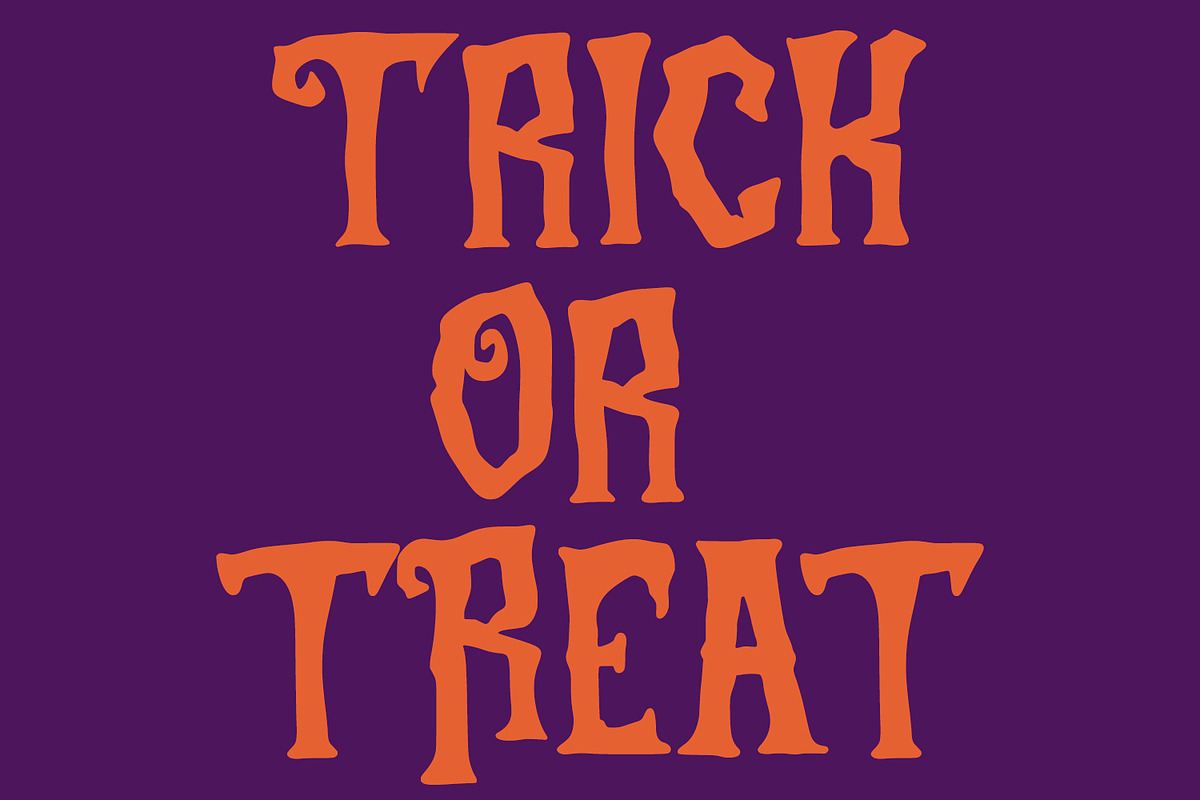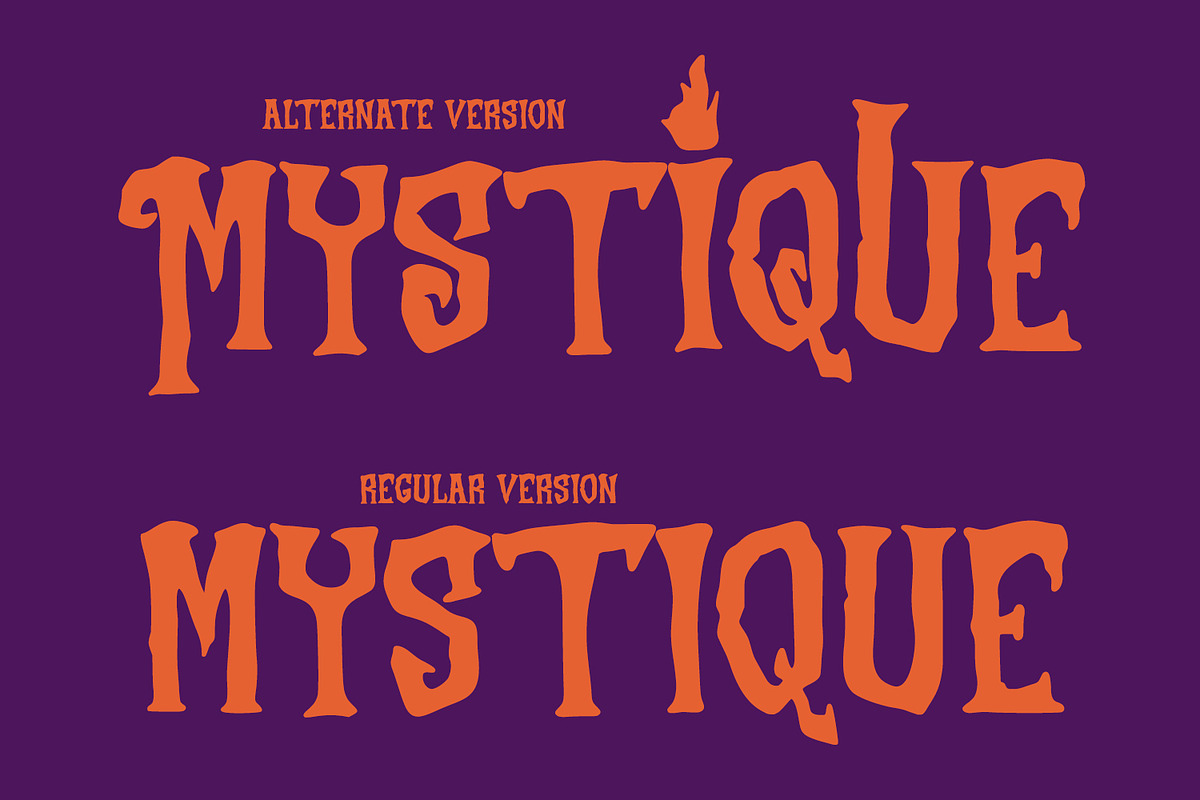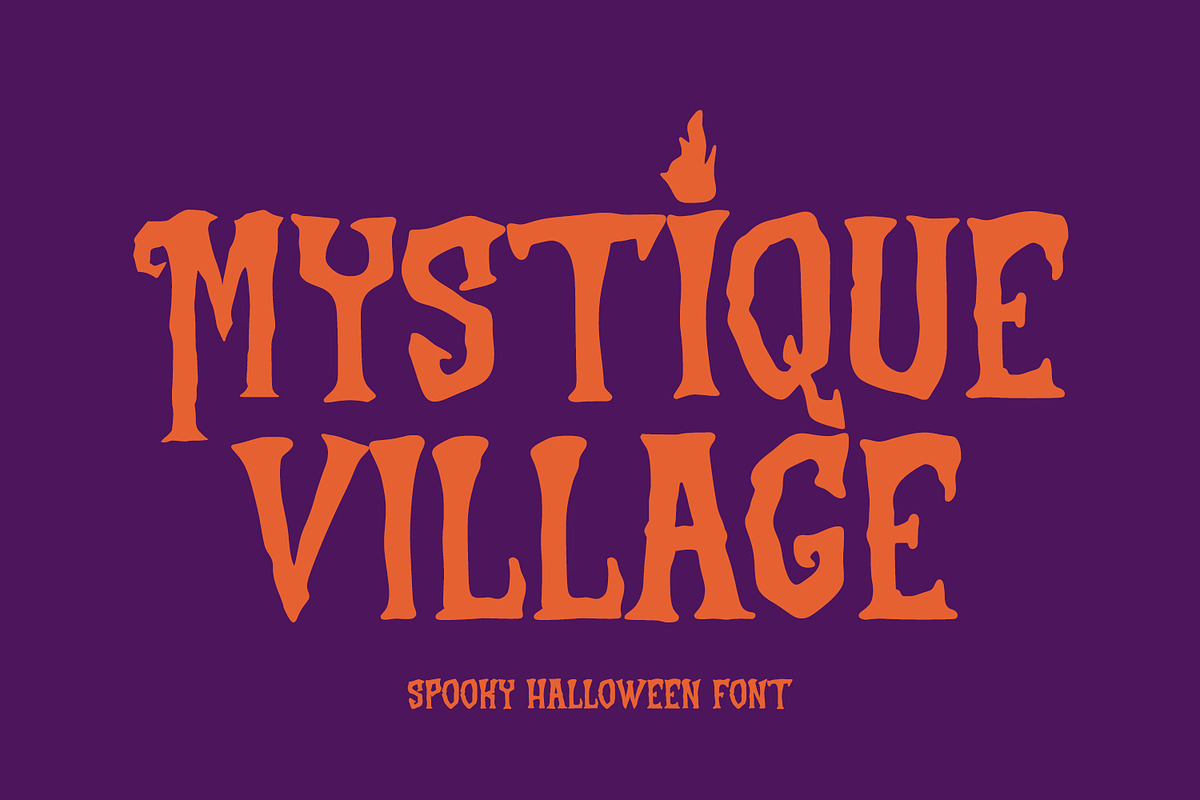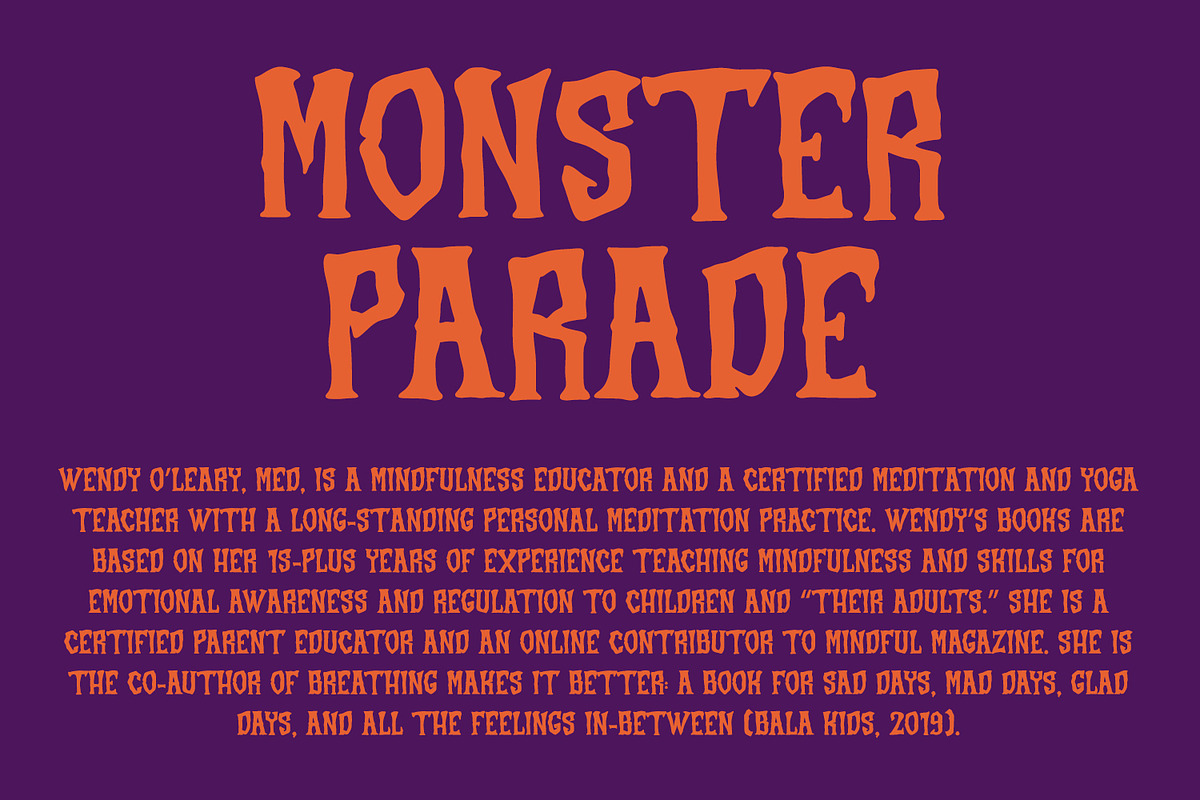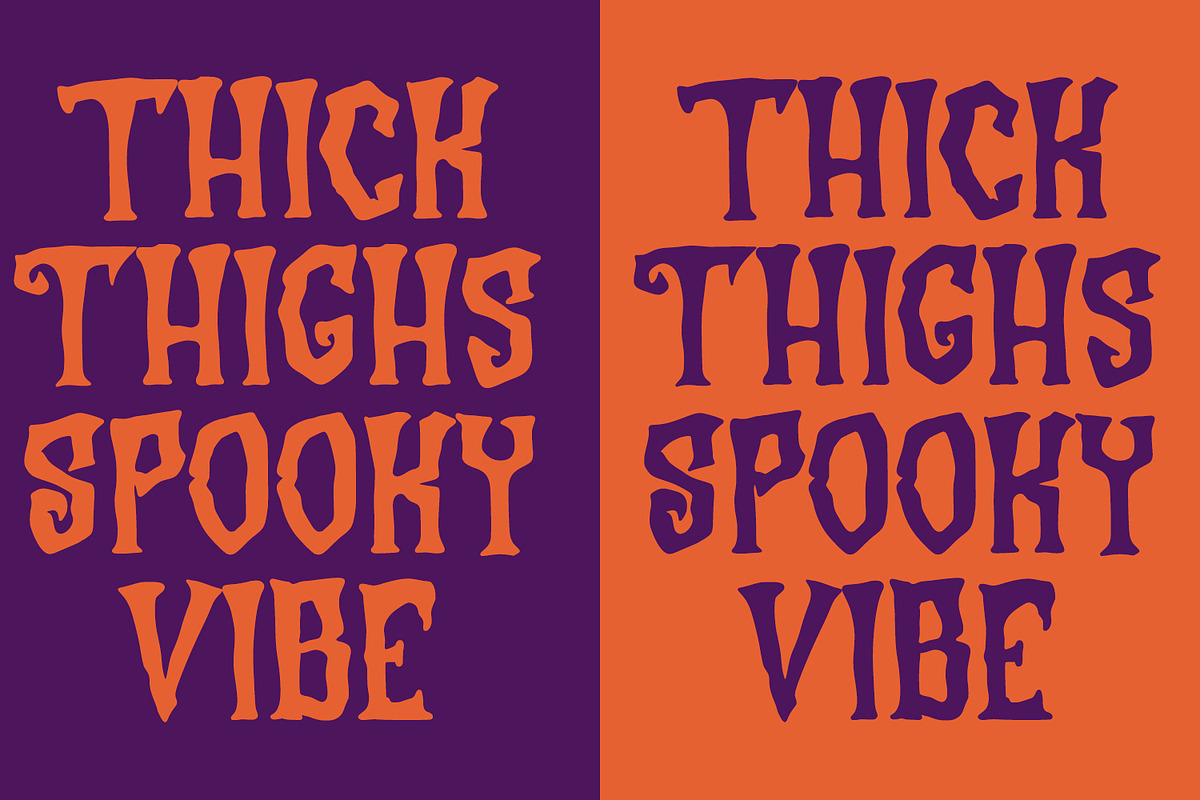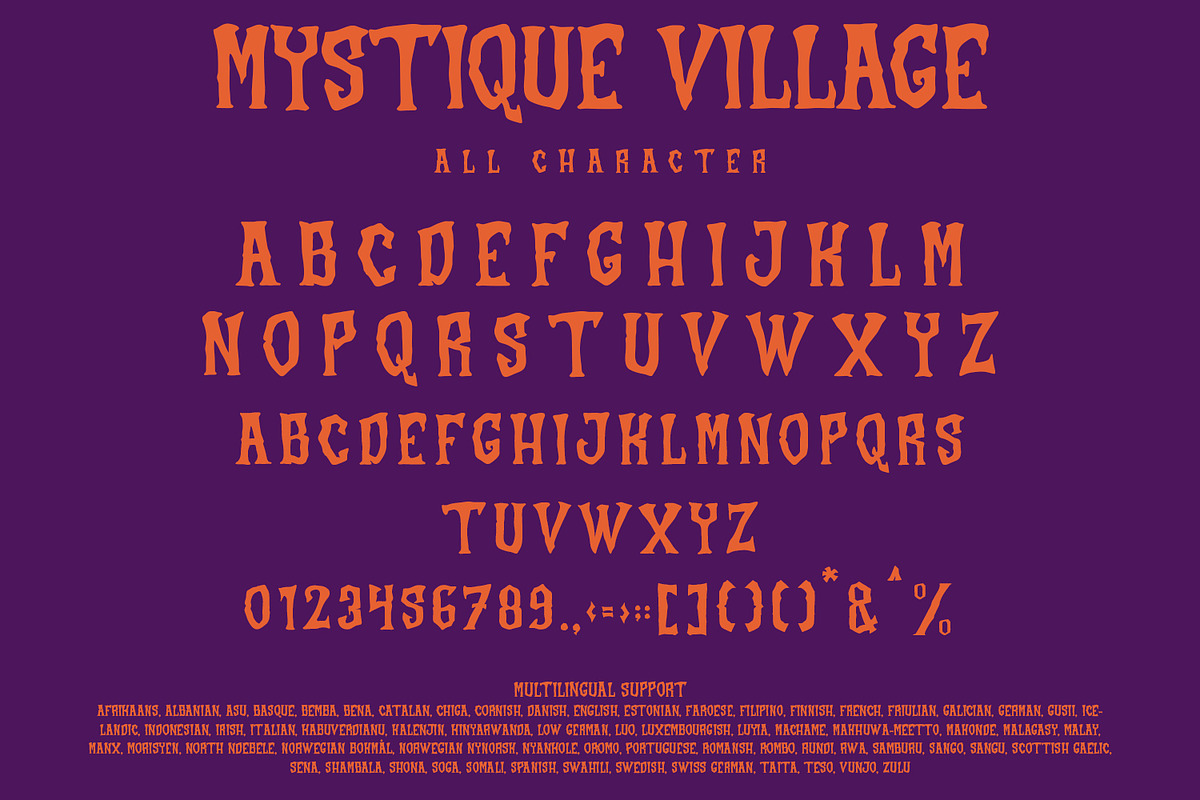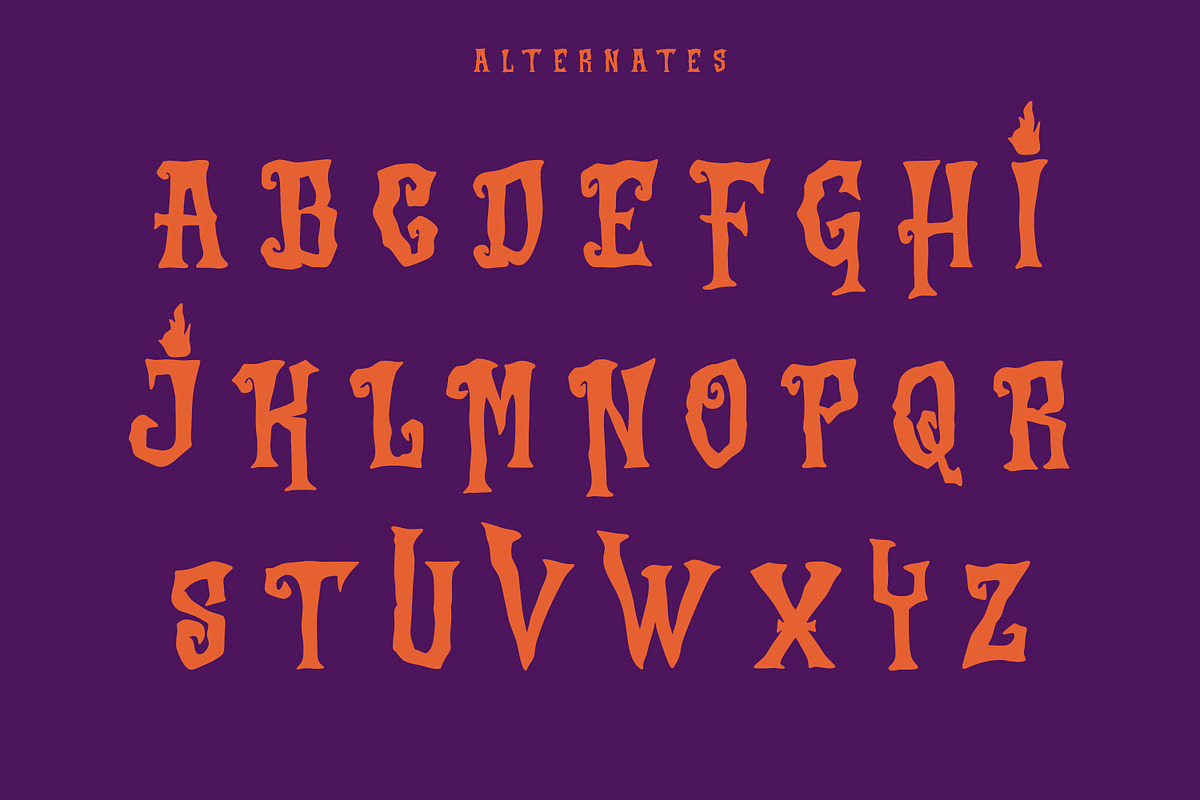
Mystique Village - Spooky Halloween
Introducing "Mystique Village"
Mystique Village - A Halloween Font
You Can Mix And Match for Your Awesome Project
This fonts is ideal for crafting, branding and decorate your any project. This fonts are perfect for wedding invitation or your blog. Also with their help, you can create a logo or beautiful frame for your home. Or just use for your business, book covers, stationery, marketing, magazines and more.
FEATURES : -Uppercase & Lowercase -Number & Punctuation -Multilingual Language